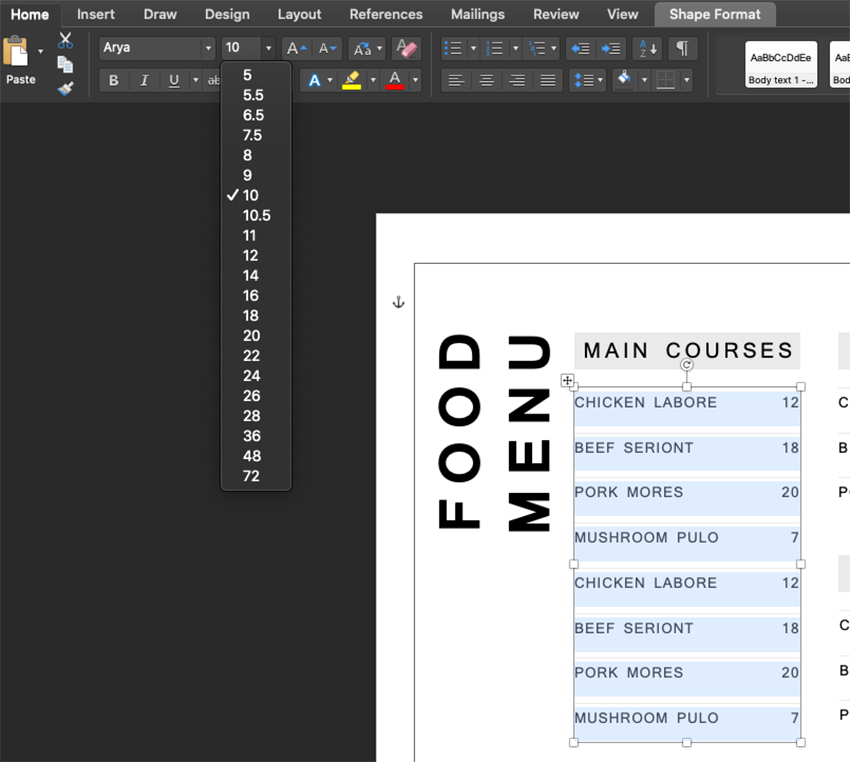
Find out how to select the ideal menu size for your restaurant. Our expert advice will help you streamline your menu. Choosing the right menu font is like picking the best ingredients for a signature dish - it elevates the entire dining experience! Whether you're revamping a diner's menu or giving a fresh twist to a café's chalkboard specials, the ideal font can make all the difference.
Dive into this selection and find the font that'll make your menu truly appetizing! The best font size for a restaurant menu is no smaller than 20-30 points, although headings and titles should be in larger fonts. For display menus, your text should be 1 inch larger for every 10 feet of distance between your customers and the menu.
Importance of Typography for Restaurant Menu Design Typography is the art and technique that arranging type to make written language legible, readable, and appealing when displayed. It involves choosing the right font, size, color, spacing, and alignment to convey the message of the text effectively. I'm creating a restaurant's cocktail menu on portrait A4 size, with fold down the middle to render 4.25" x 11" per panel.
What is the suggested minimum font size that I can go with? Learn how to curate your restaurant menu design, menu layout, and menu size to guide dining decisions and maximize profitability. Discover the best menu font choices that enhance your restaurant's brand and improve customer experience, with typography tips for fine dining, casual restaurants, and cafes.
Fonts and layout are the visual backbone of your menu. They shape how your customers perceive your restaurant and navigate your offerings. A well-chosen font can evoke emotions, set the tone, and reflect your brand personality, while a strategic layout can highlight key items, improve readability, and encourage customers to explore your menu.
I am designing my own restaurant wall menu and would like some help with choosing which font size is best for the heading, the menu items and also the font that is most suitable. Thank you for re. What font size is best for a menu? The ideal font size for a menu depends on several factors, including the size of your menu, the lighting in your restaurant, and the target audience.
A good starting point is 10.